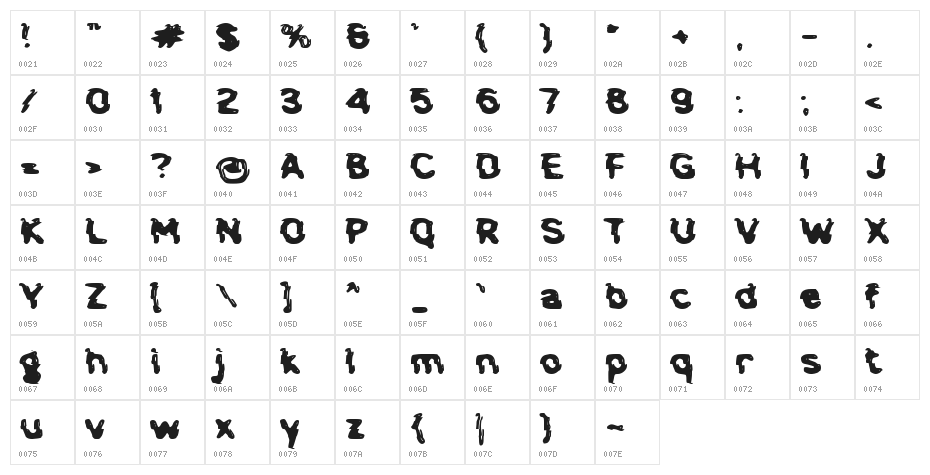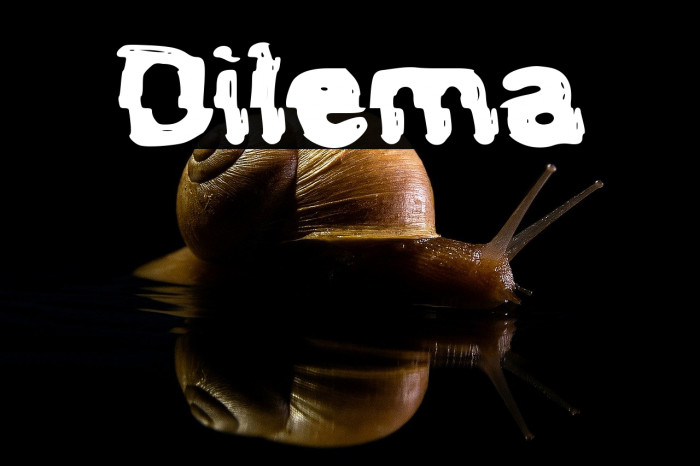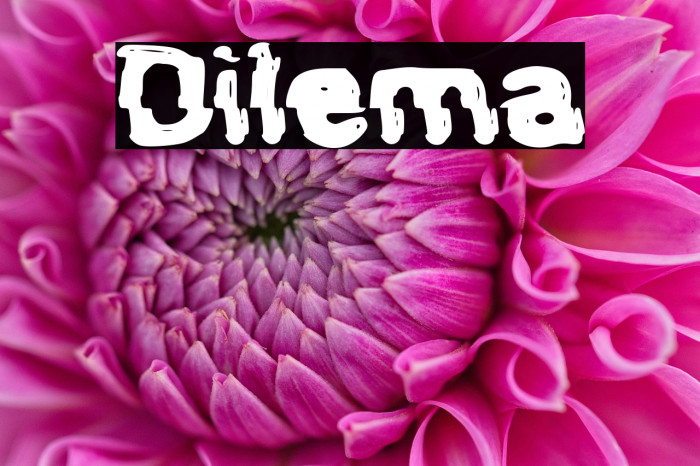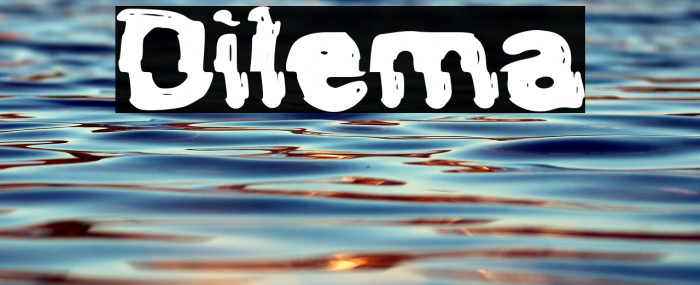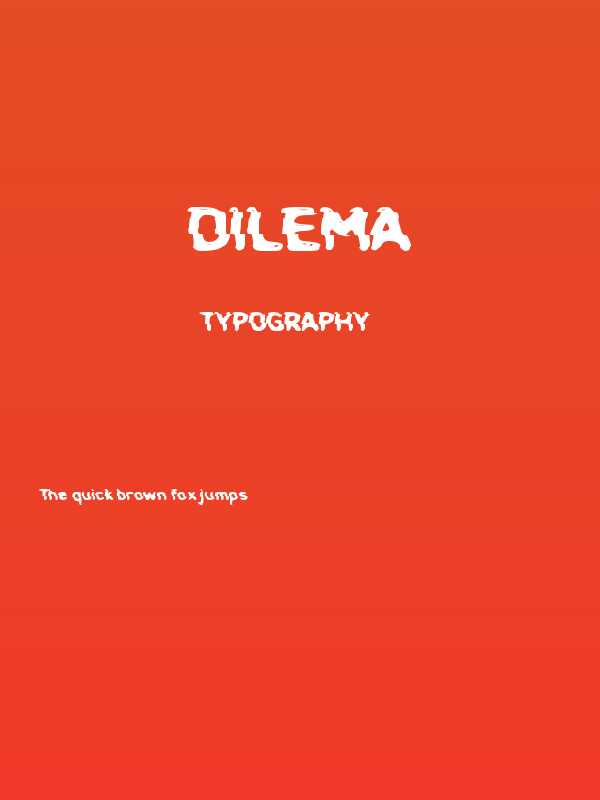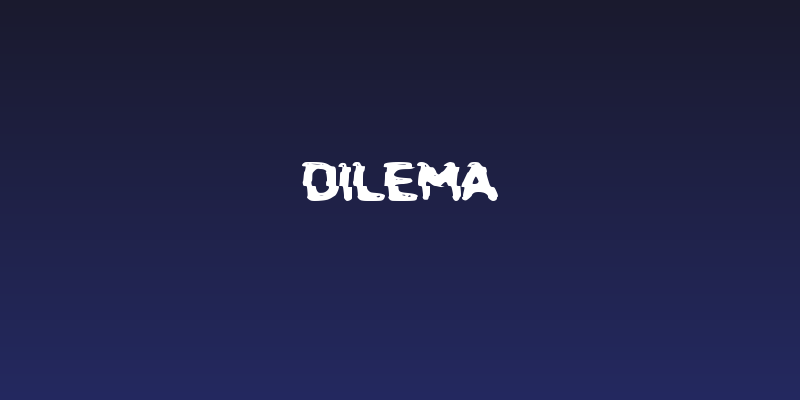
Dilema Font
Dilema Description
This font features a bold and playful design with a hand-drawn aesthetic. The letters are thick and rounded, giving them a friendly and approachable appearance. The irregular shapes and varying stroke widths add a dynamic and lively feel, making it stand out as a decorative option. The characters have a slightly distorted look, reminiscent of liquid or melting forms, which adds a unique and artistic touch. This font is well-suited for creative projects where a fun and informal style is desired. The numbers and special characters maintain the same playful and bold characteristics, ensuring consistency throughout the typeface.
| Proposed Projects | Ideal for children's books, playful branding, posters, and creative invitations. |